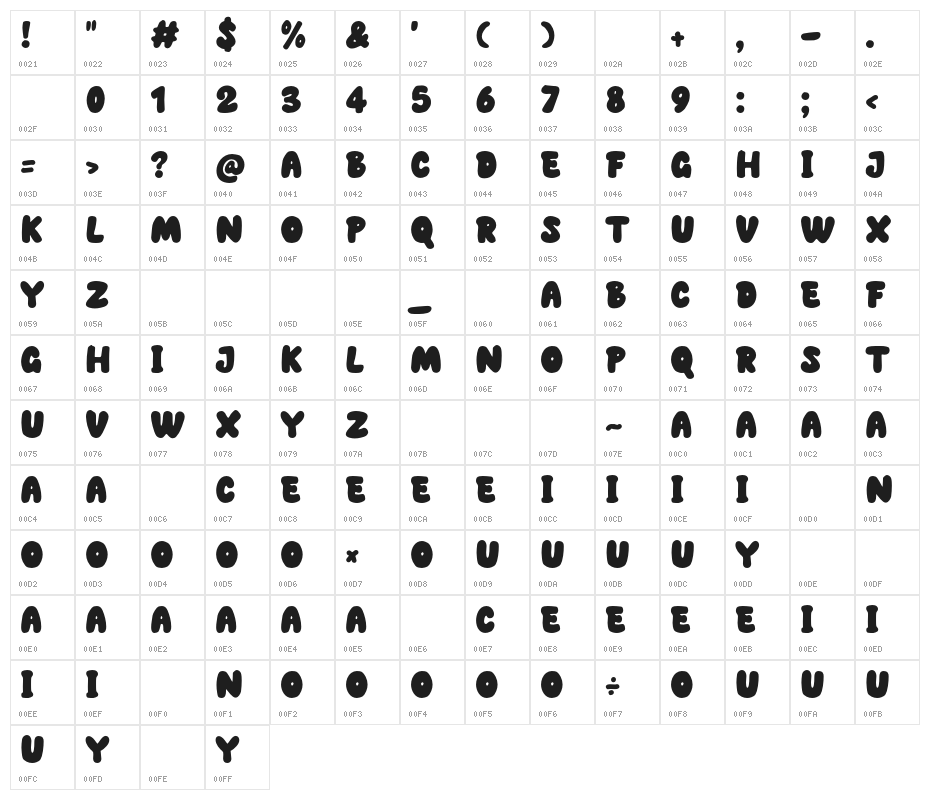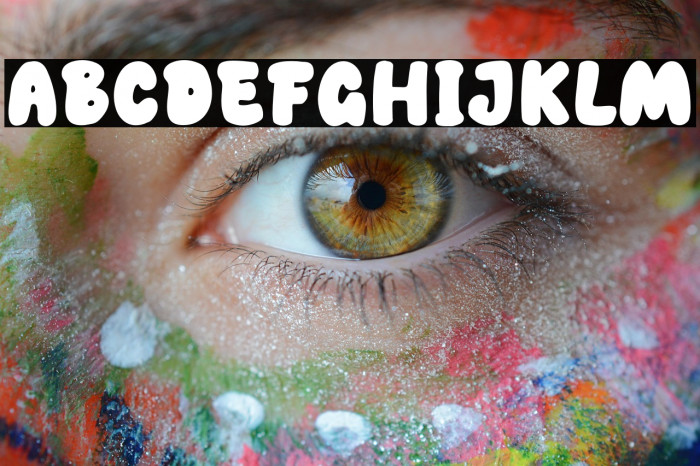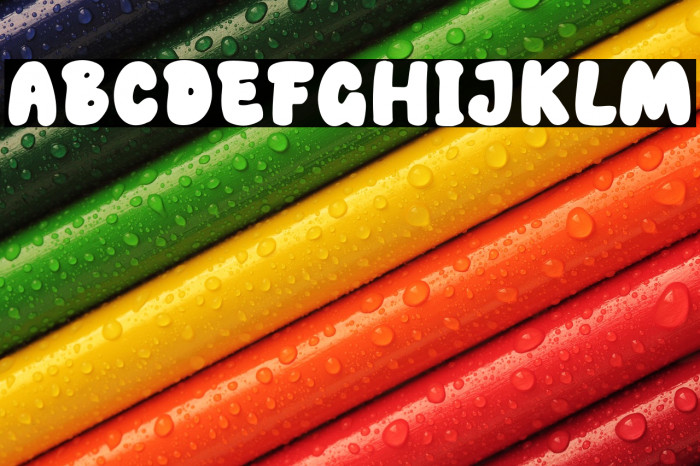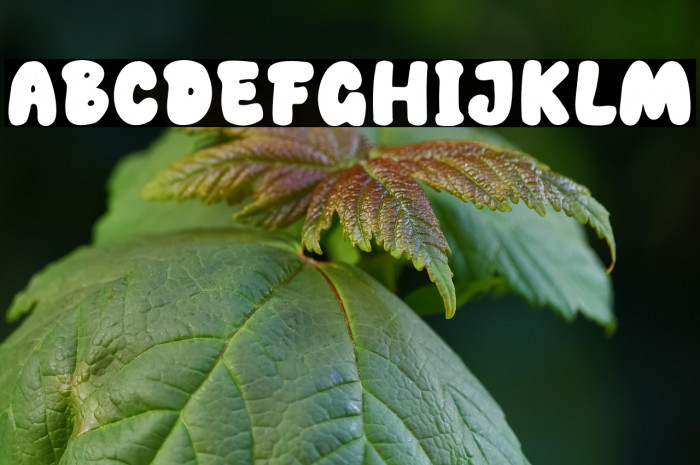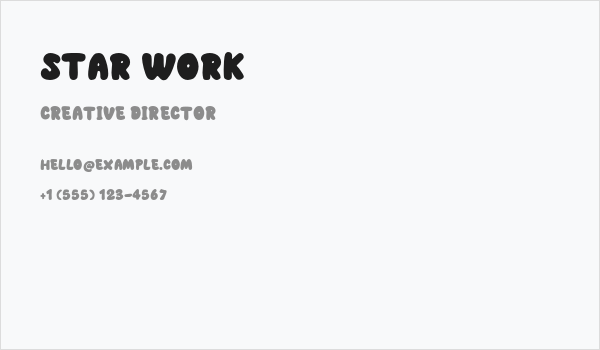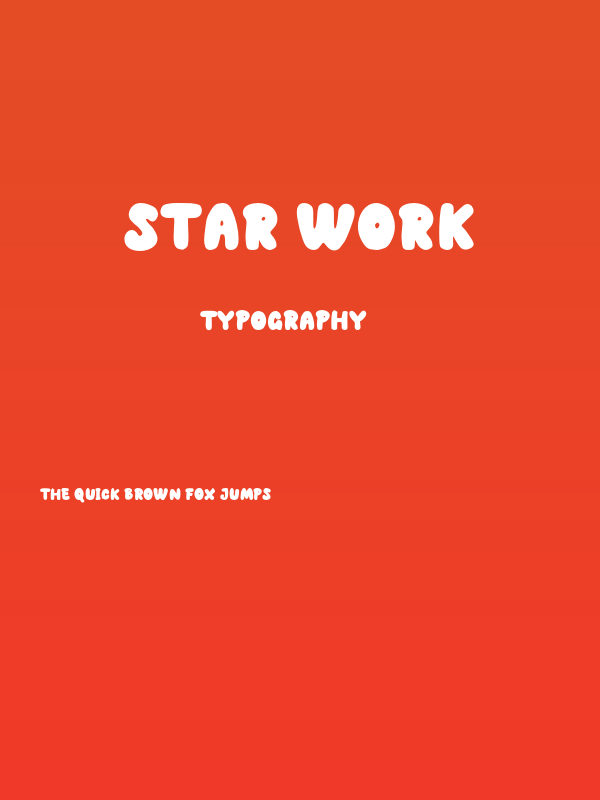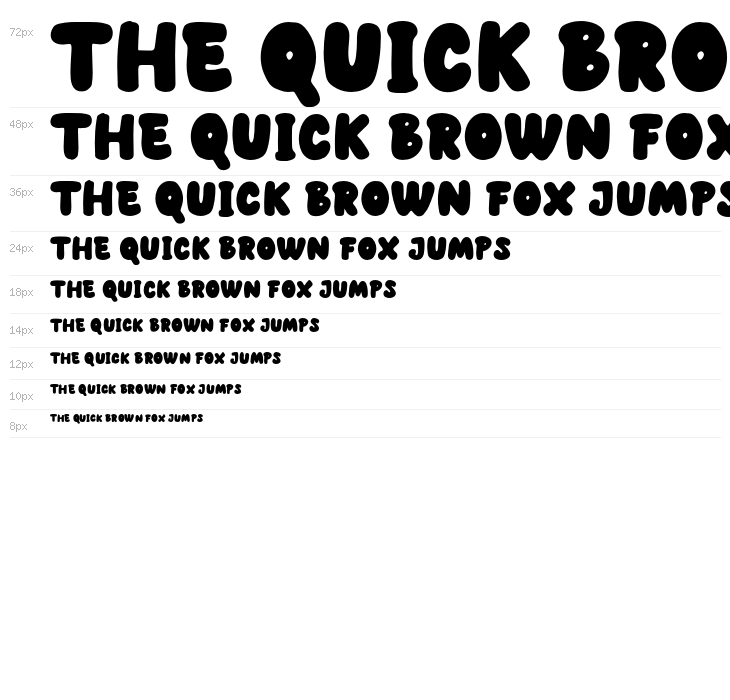
Star Work Font
Star Work Description
This playful and bold font features rounded, bubble-like characters that convey a sense of fun and whimsy. The letters are thick and uniform, with a consistent stroke width that gives them a cohesive appearance. The overall design is reminiscent of retro or cartoon styles, making it ideal for projects that require a lighthearted and approachable feel. The numbers and special characters maintain the same bubbly aesthetic, ensuring a harmonious look across all text elements. This font's unique style makes it stand out, perfect for capturing attention in creative and informal settings.
| Overall Style | Playful, Retro, Cartoon |
| Proposed Projects | Children's books, party invitations, playful branding, cartoon graphics, and casual posters. |